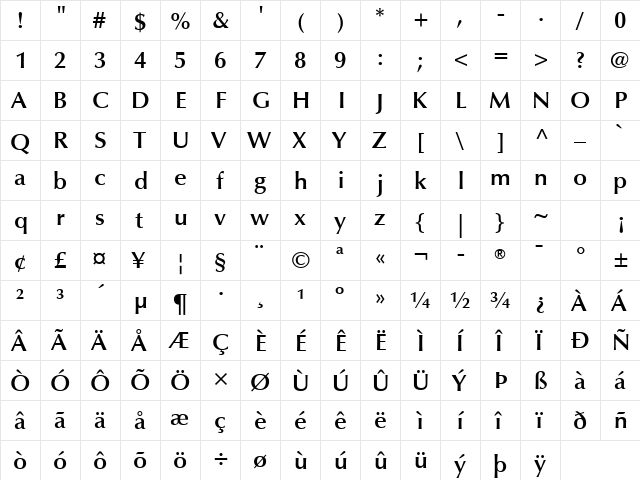
Optima LT Std DemiBold Demibold
| Designer | Hermann Zapf |
Design Context for Optima LT Std DemiBold Typeface
Optima LT Std DemiBold is a composed and adaptable typeface that performs quietly and consistently across a wide range of design contexts. Its bold stroke weight gives it real presence on the page.
Pro Tip: Pair Optima LT Std DemiBold with a font of contrasting weight or personality to build a more expressive typographic hierarchy.